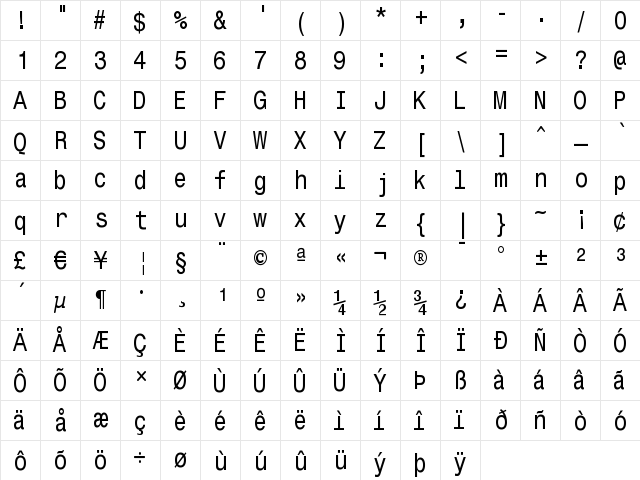
MonospaceTypewriter Regular
Design Context for MonospaceTypewriter
MonospaceTypewriter uses fixed-width spacing throughout, giving it the structured, systematic character associated with coding environments and technical documentation.
Pro Tip: Use MonospaceTypewriter with slightly increased line-height for extended reading - fixed-width spacing can feel dense in longer passages without extra breathing room.